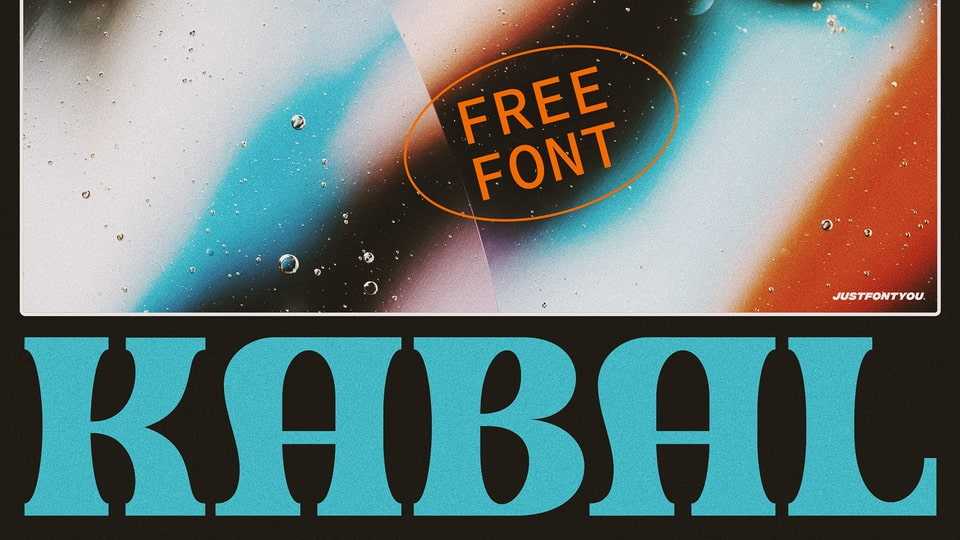
Download Kabal font a bold, strong, and high-contrast serif typeface, inspired from the diversity of futuristic contemporary typographic design nowadays, touched up with the formal vintage vibes.